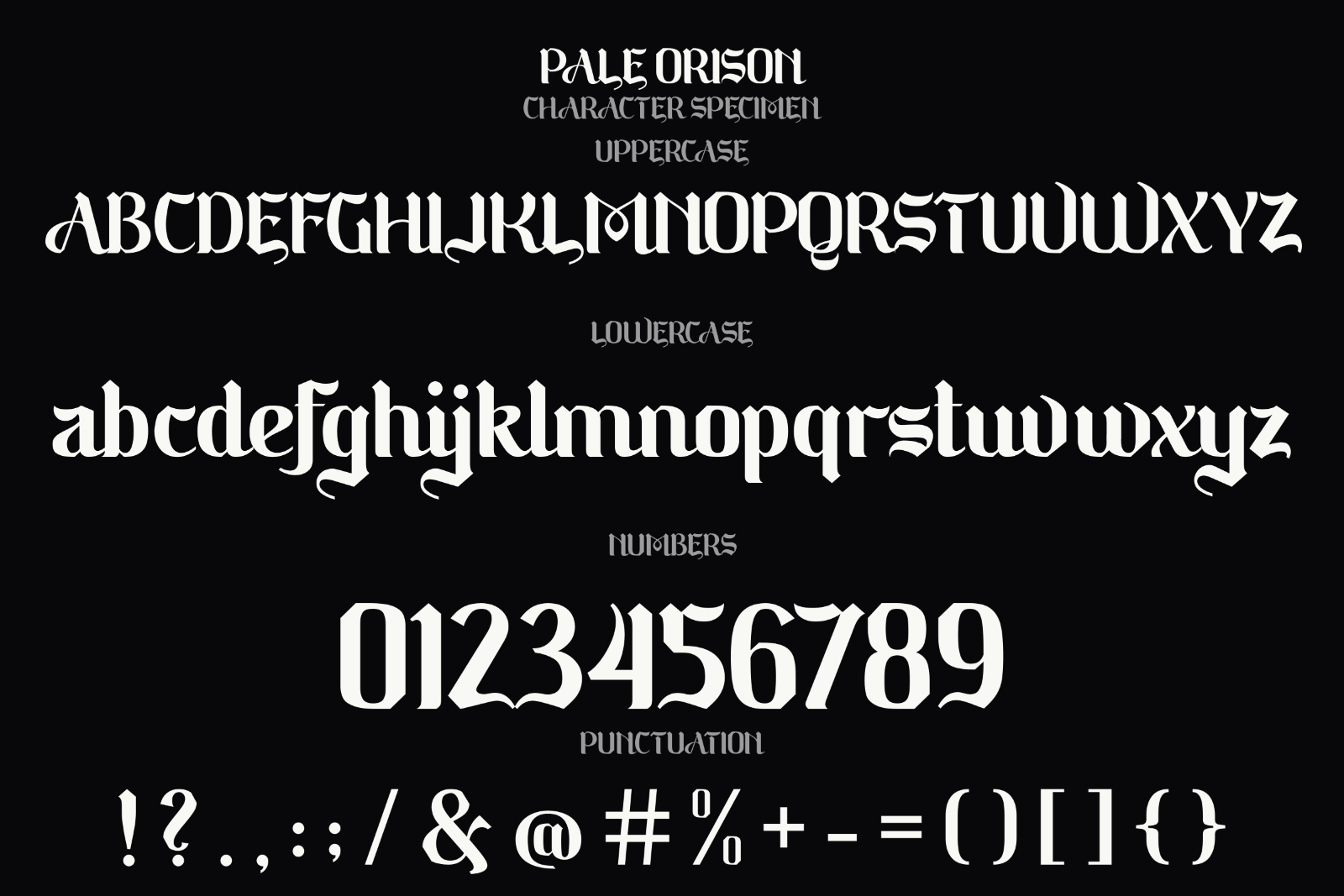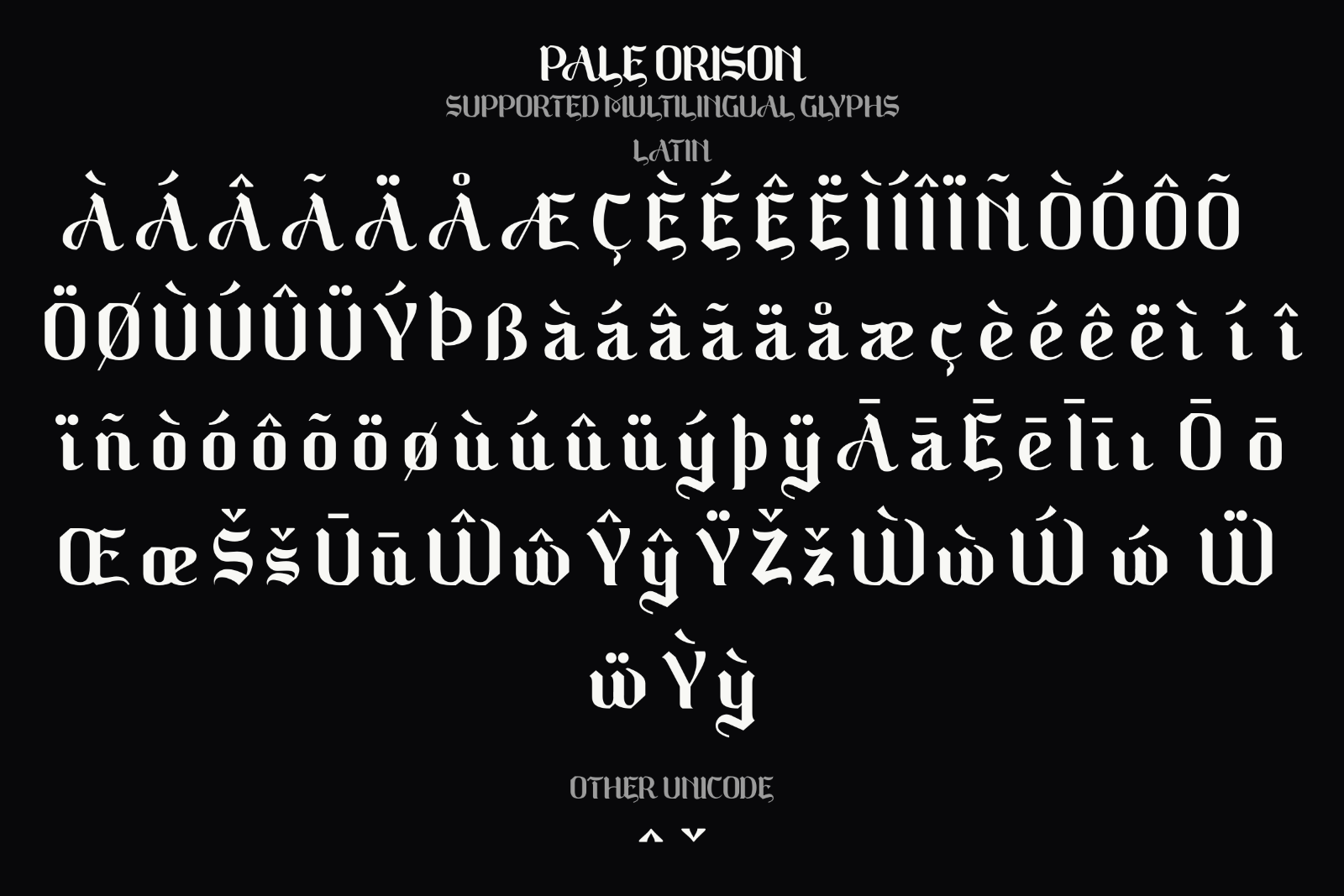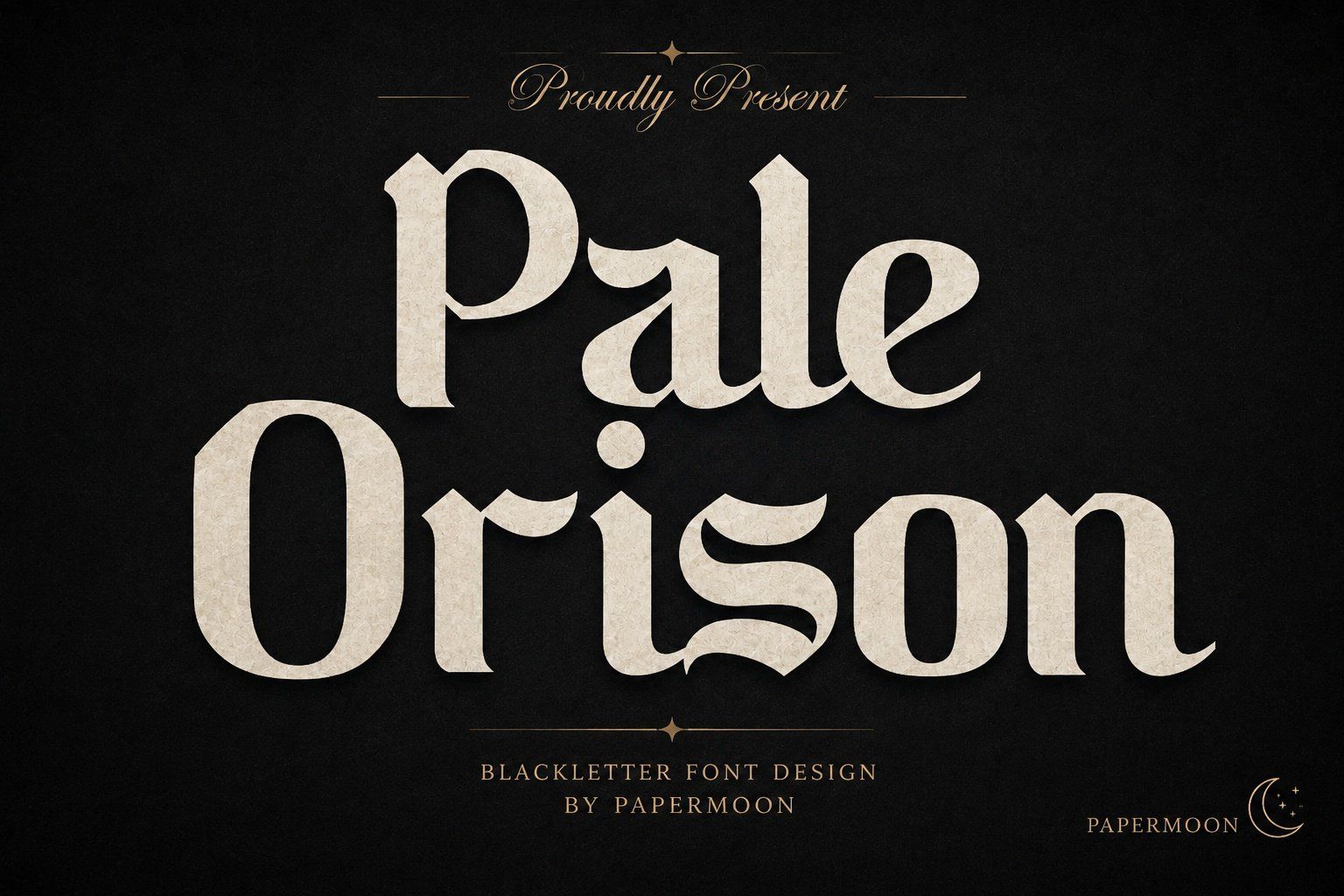
Pale Orison is a bold blackletter display font that gives logos, branding, and packaging a commanding Gothic elegance.
Inspired by timeless Gothic art and medieval Gothic architecture, its forceful lines, sharp angles, intricate details, pointed arches, dramatic serifs, and ornamental flourishes create lettering with authority and refinement. The result balances a strong historic presence with an elegant, luxurious finish for designs that need to feel distinctive.
• Branding, logos, and wordmarks
• Labels and product packaging
• Advertisements and social media posts
• Photography and watermarks
• Wedding designs, invitations, and stationery
• Uppercase and lowercase
• Punctuation and symbols
• Beautiful unique ligatures
• Alternate characters
Use the ligatures and alternates to add variety to short statements, names, and display compositions while preserving Pale Orison's dramatic Gothic identity. Choose it when your next logo, invitation, package, label, or promotional design needs bold blackletter typography with intricate ornamental character.